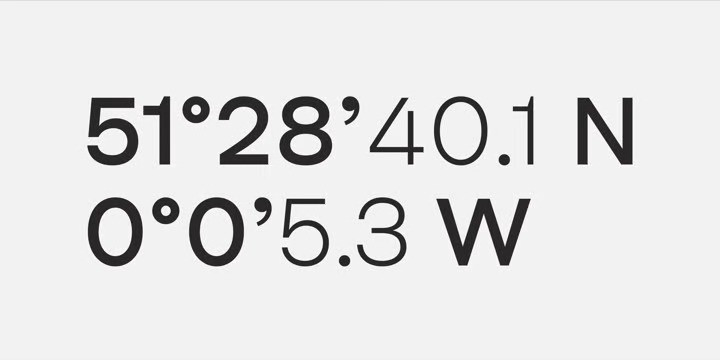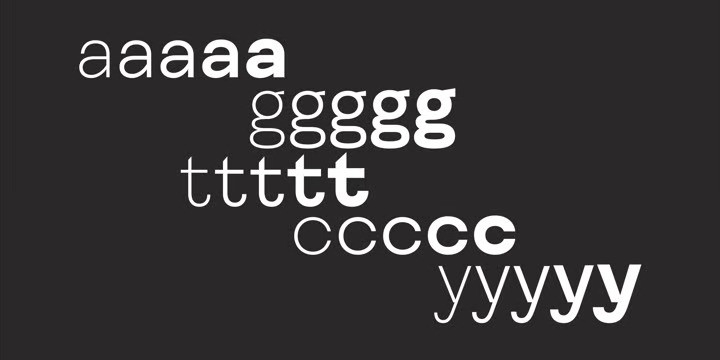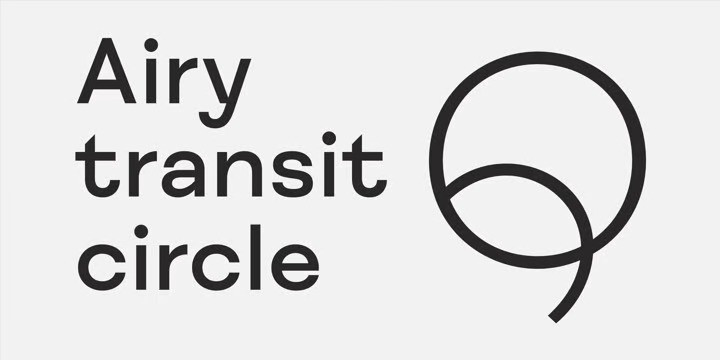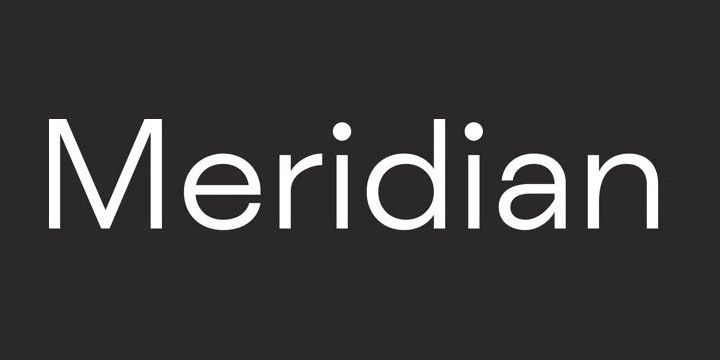
FS Meridian Font Family
FS Meridian Sans Serif Font is a modern geometric sans-serif family designed by Fontsmith and the whole family consists of 6 style from Thin to Bold. From a geometric base, its rounded forms veer and extend, creating unexpected humanistic shapes – while the straight terminals remain reliably rigid. This combination of forms gives this grotesque sans serif a pleasingly dynamic rhythm.